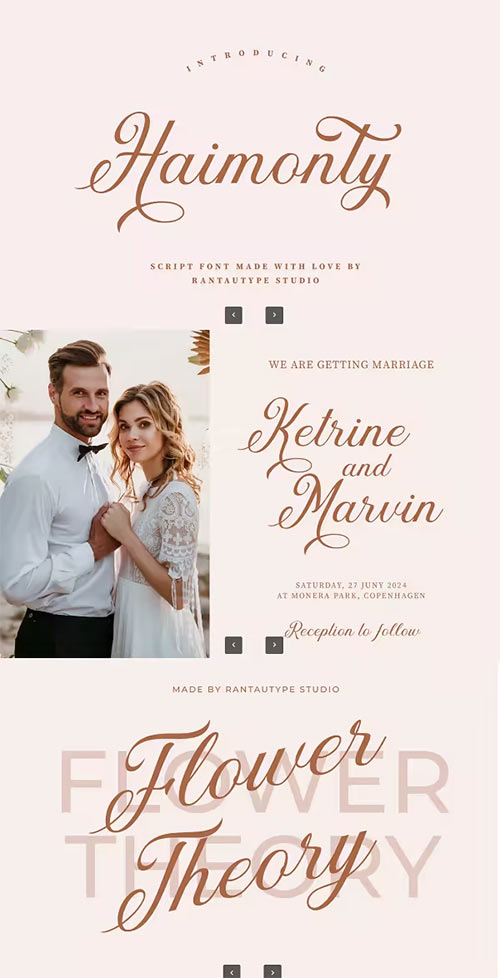
Haimonty Modern Script Font 682L6T6
Heimonty is an elegant and romantic script font inspire by calligraphy lettering. Heimonty come to complement your designs and make your designs beautiful and more attractive. Heimonty add a luxurios impression, there are many alternate you enchance your design.
Heimonty is perfectly choice for any creative endeavor, chic, lifestyle design such as logos, title, watermark on photography, cover, branding, display and magazine, wedding event, corporate brand, invitation, quotes, album cover, business card, business project and many other design project with handwritten taste.